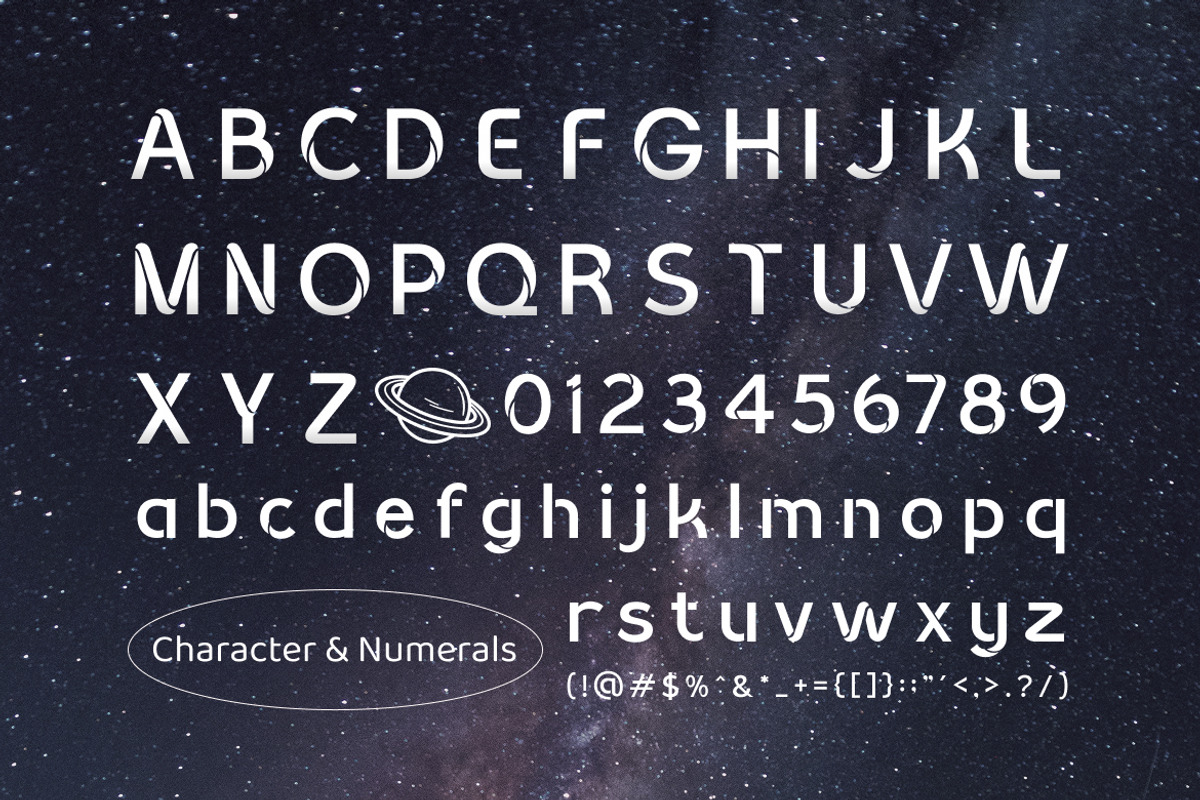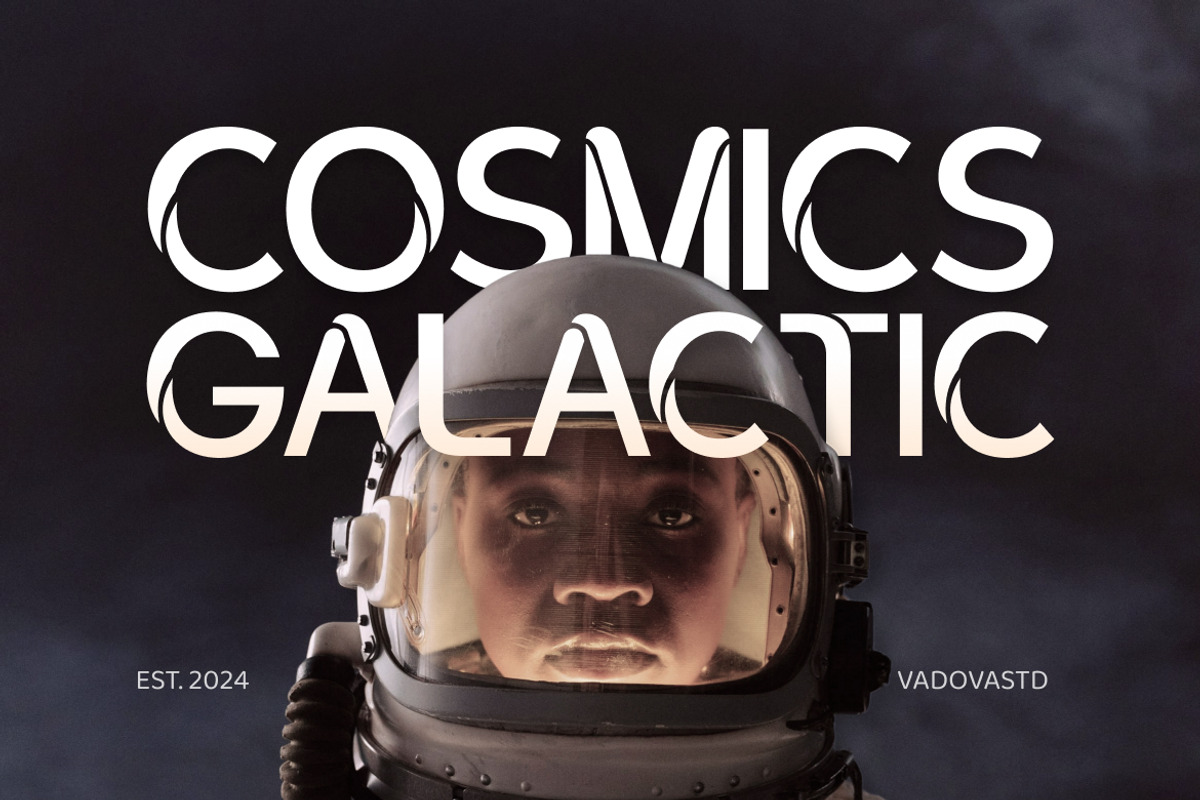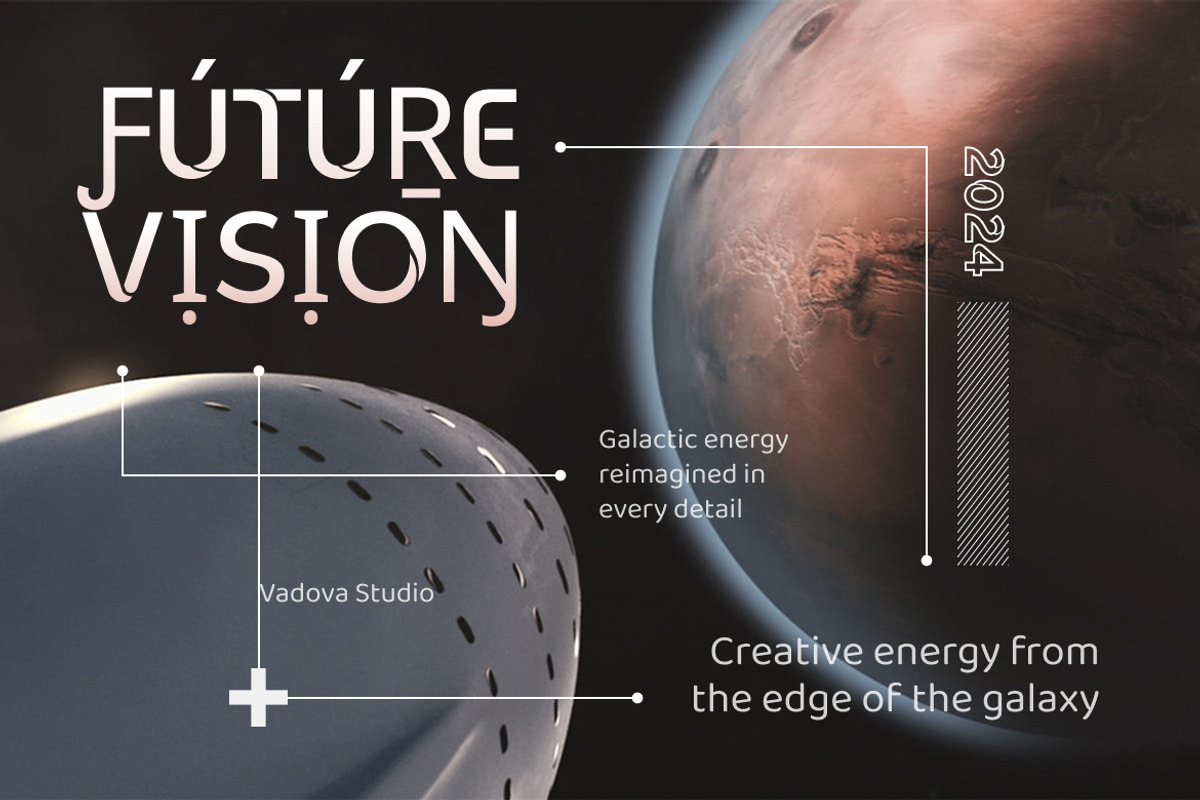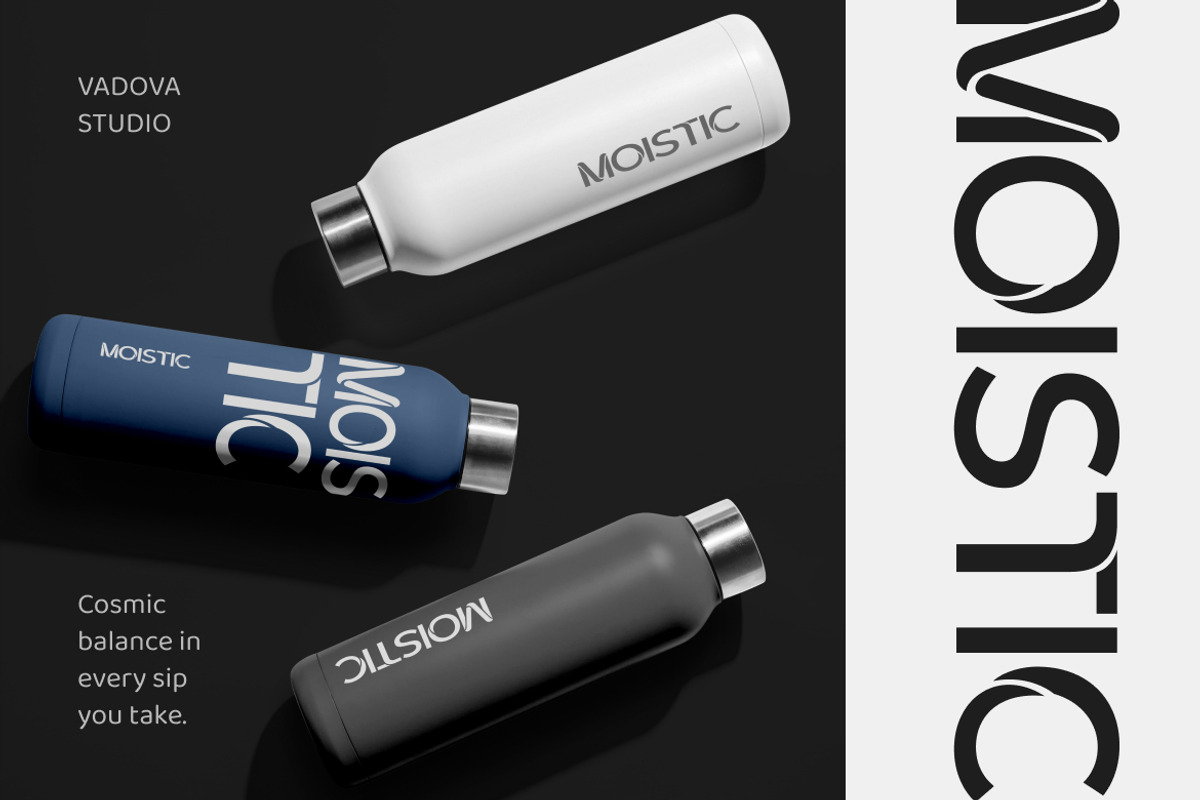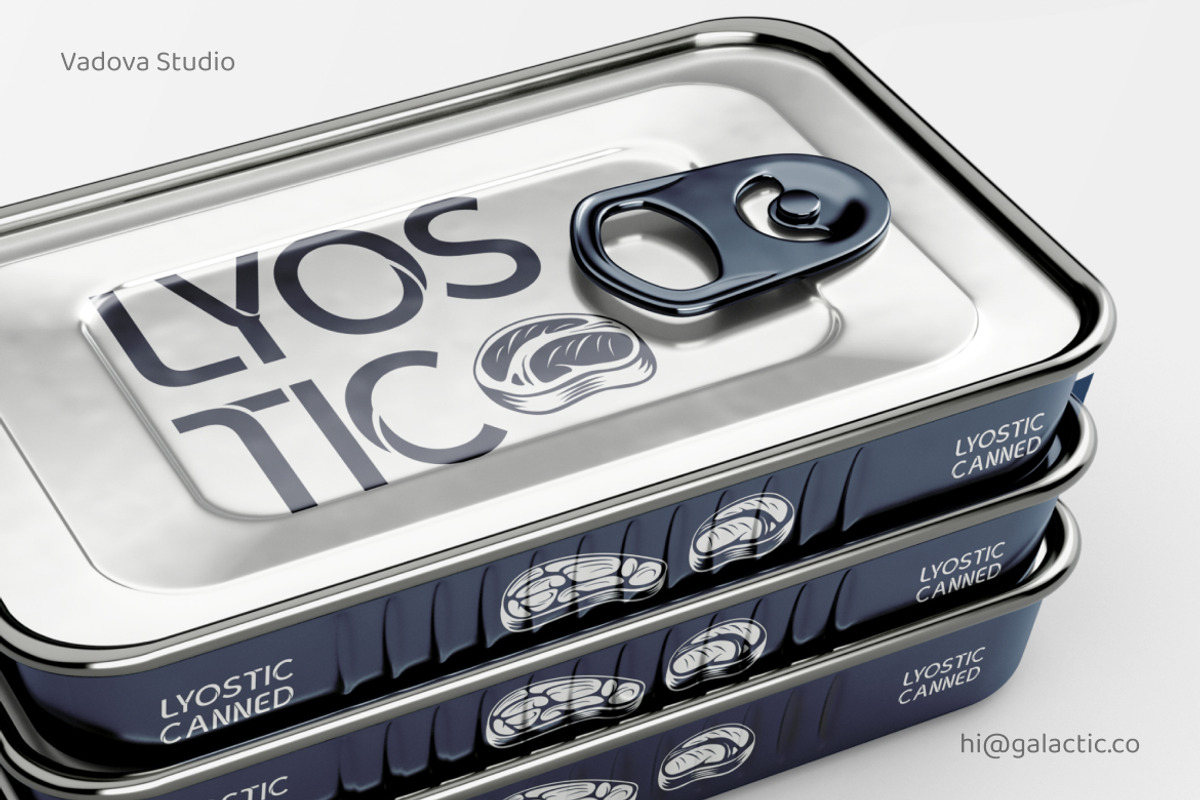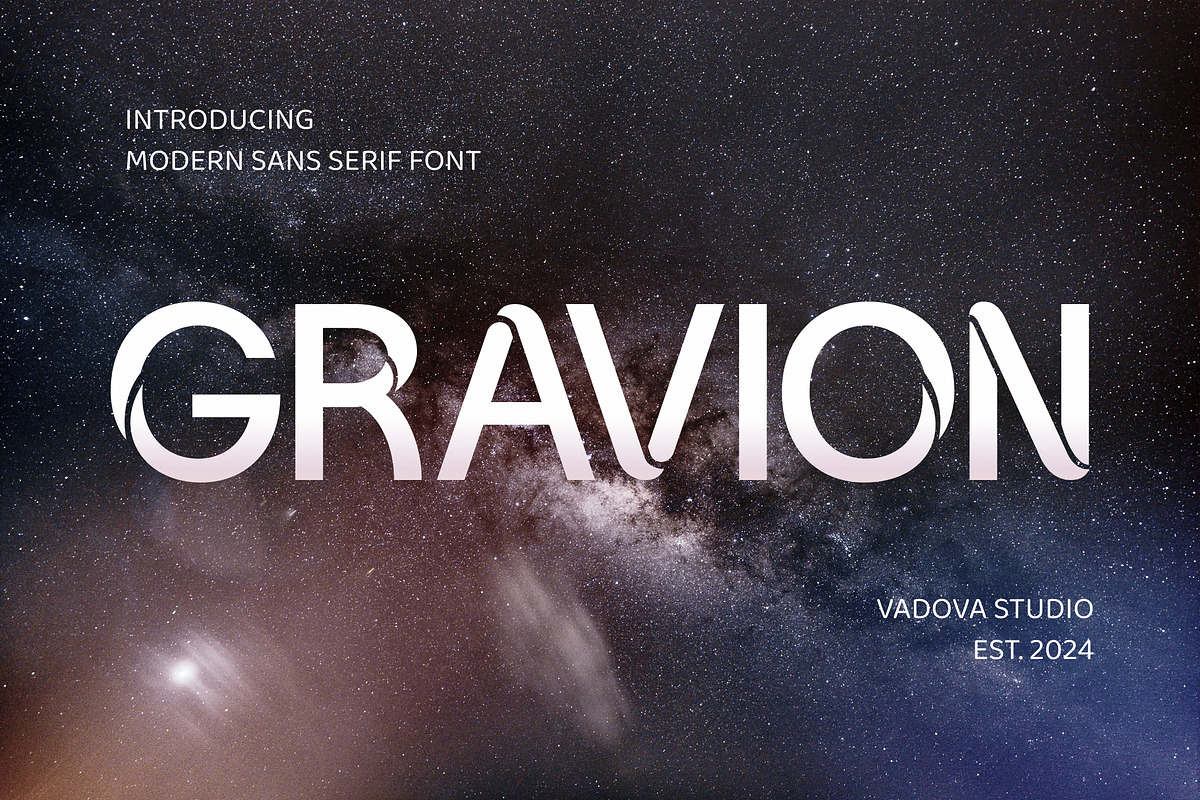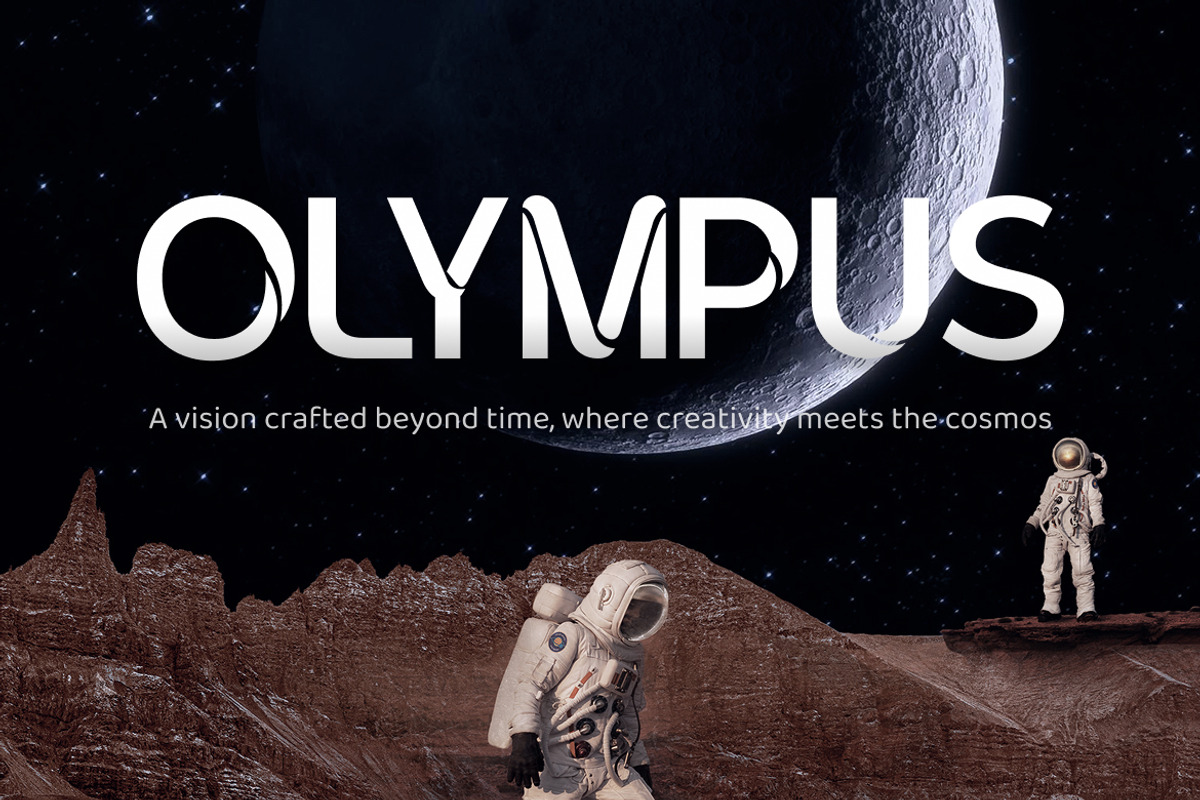
Gravion Futuristic Modern Sans Serif
Gravion is a futuristic modern sans serif typeface inspired by the gravity and elegance of the cosmos. Designed with clean geometric structure and fluid orbital curves, Gravion represents the harmony between technology and imagination. It brings a sense of motion, depth, and sophistication to every composition.
Each letterform is crafted to evoke a sense of galactic motion — sleek, minimal, and infused with creative energy. From sci-fi titles to innovation branding, Gravion gives your typography a modern celestial presence that feels futuristic yet timeless.
Perfect for designers exploring beyond the ordinary, Gravion transforms visual communication into a universe of possibilities.
- Futuristic modern sans serif with fluid orbital cuts and geometric balance
- Elegant curvature inspired by space and cosmic energy
- Ideal for digital branding, sci-fi projects, and innovation campaigns
- Uppercase, lowercase, numerals, punctuation, and special symbols included
- Multilingual support for global design projects
- Optimized for screen clarity and print performance
- Excellent for sci-fi posters, futuristic websites, and tech branding
- Unique details enhance both display titles and logo compositions
Relevance and Use Cases is perfect for sci-fi titles, cosmic branding, digital product design, space exploration visuals, modern tech startups, movie posters, innovation campaigns, and futuristic editorial layouts.